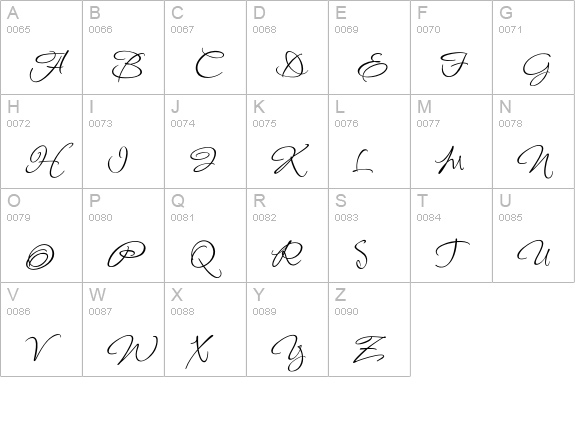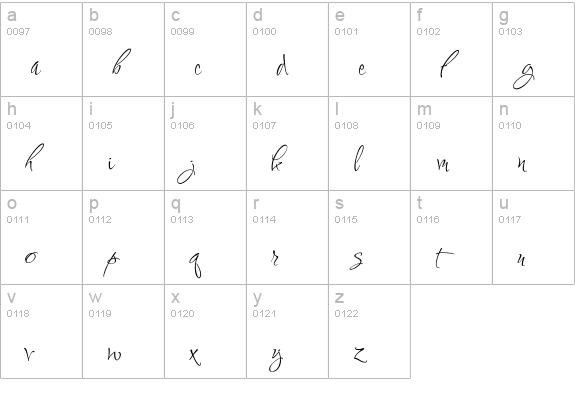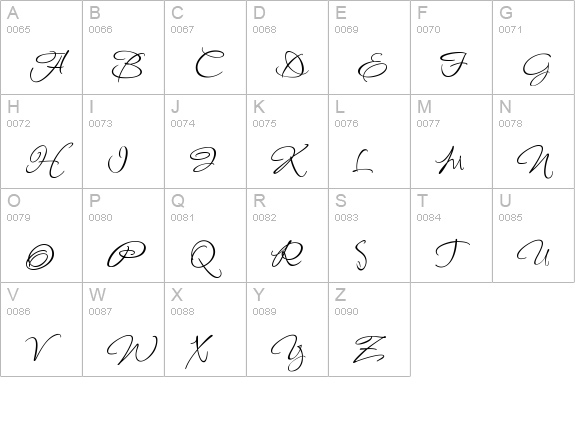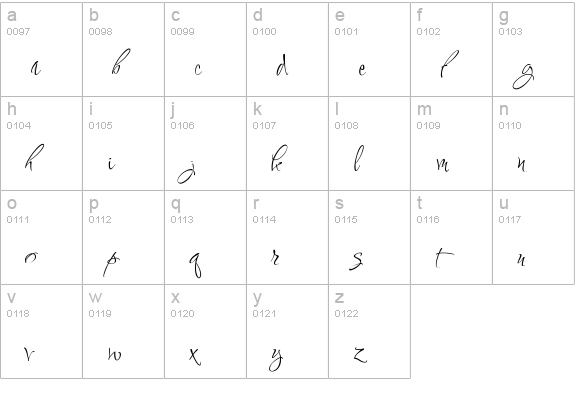
FugglesTwo Font Details
FugglesTwo font is a stylish and modern typeface that exudes elegance and sophistication. With its sleek lines and unique character designs, this font is perfect for adding a touch of class to any project. The FugglesTwo font is versatile and can be used for a wide range of design purposes, from logos to invitations to branding materials. The best part? FugglesTwo font is available for free download at FontsMarket.com. This means that you can access this stunning font without any cost, making it a valuable addition to your font collection. Whether you're a professional designer or a hobbyist looking to elevate your projects, FugglesTwo font is a must-have resource that will enhance your creative endeavors. Download it today and start creating beautiful designs with this exceptional typeface.